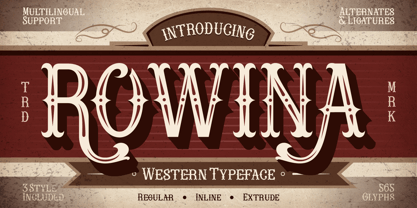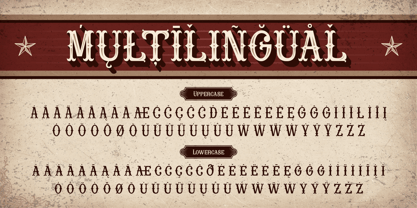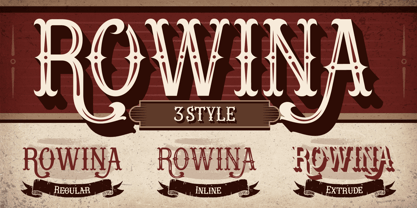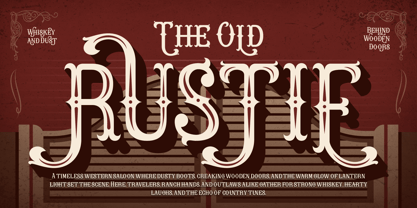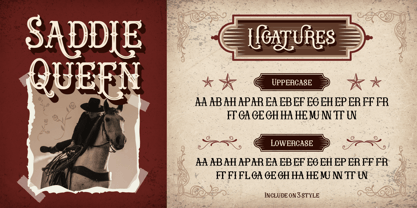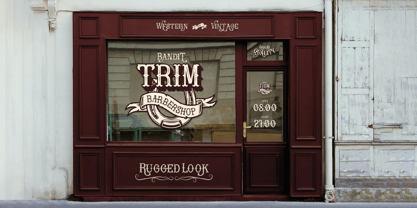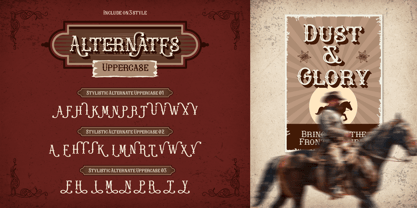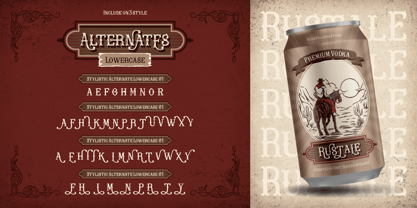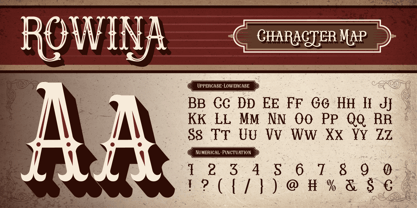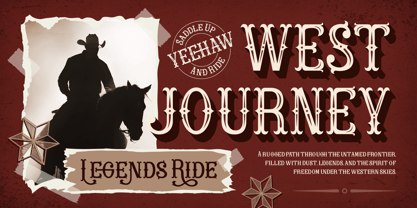
Rowina
The Rowina Font Family was designed by Eric Kurniawan and published by Burntilldead. Rowina contains 3 styles and family package options. More about this family
Step back into the wild frontier with Rowina, a bold Western typeface that brings the spirit of the old saloon days to life. Inspired by vintage posters, cowboy boots, and whiskey-stained wooden signs, Rowina captures the rugged charm and timeless grit of the Wild West. Whether you’re designing a whiskey label, rodeo poster, or rustic café branding, Rowina adds that classic cowboy soul your design’s been missing. With 3 styles — Regular, Inline, and Extrude — plus alternates and ligatures, you can create layered, authentic Western looks that feel straight out of the prairie. Saddle up and let Rowina ride your next creative adventure, because every design deserves a little dust, whiskey, and freedom.